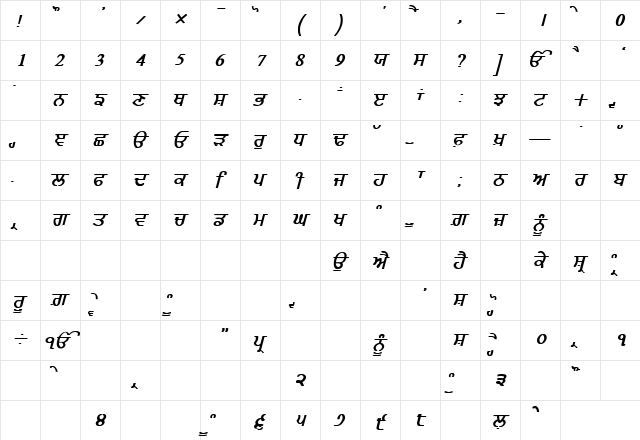
GurmukhiLys 020 Bold Italic Normal Font Preview
Design Context for GurmukhiLys 020 Bold Italic Typeface
GurmukhiLys 020 Bold Italic takes a measured approach to typography — its balanced proportions and neutral character make it a reliable workhorse for both digital and print work. Its italic angle brings a sense of urgency and motion to the letterforms. Its bold stroke weight gives it real presence on the page.
Pro Tip: Try GurmukhiLys 020 Bold Italic for annotation and caption copy alongside an upright companion — the contrast in angle creates a dynamic but ordered typographic system.